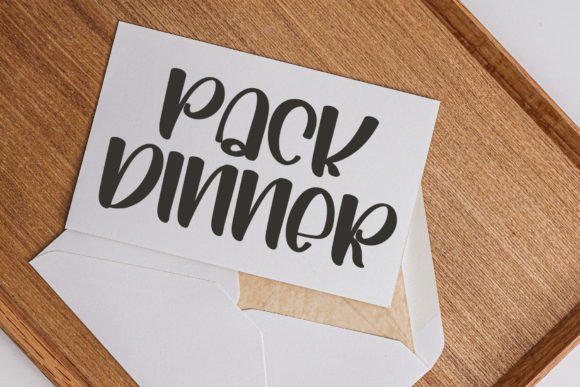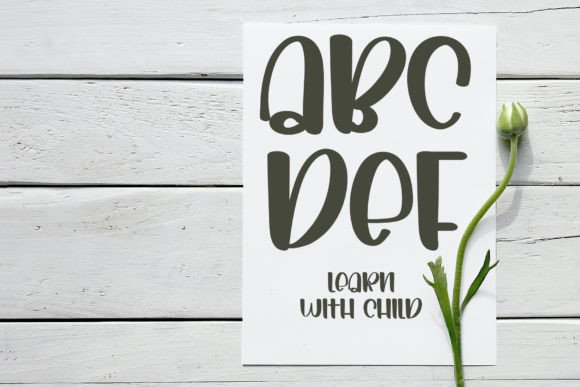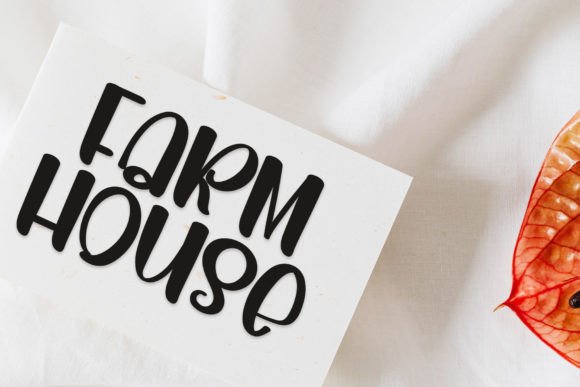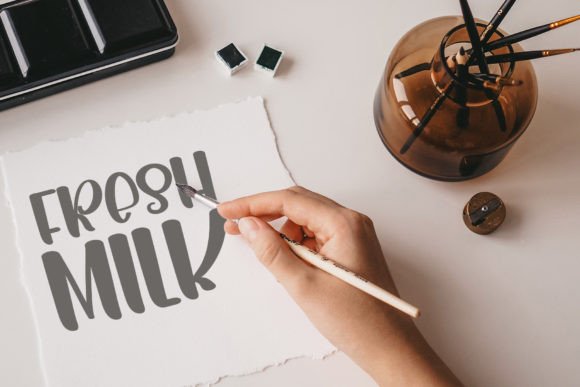
The Boho Chic of Typography
As designers, we’ve all been there – staring at a blank page, trying to conjure up the perfect font to match our creative vision. And then, like a breath of fresh air, it hits us: the perfect font that brings our design to life. For me, that font was the Boho Font, with its elegant handwritten style and playful, quirky personality.
Boho Font is more than just a font – it’s a way to add a touch of whimsy and individuality to any design. Its natural, handwritten style gives projects a charming and personal feel that’s hard to replicate with more formal fonts. Whether you’re designing a brand identity, a website, or a social media campaign, Boho Font is the perfect choice for anyone looking to add a little bohemian flair to their work.
Key Features of Boho Font
- Unique Characteristics: Boho Font features a bohemian-inspired design with intricate details, making it perfect for creating a free-spirited and artistic look.
- Font Styles: The font comes in 3 styles: Regular, Bold, and Italic, offering versatility for different design applications.
Boho Font Review
Boho Font is a beautiful, hand-drawn font that’s perfect for adding a touch of bohemian charm to your designs. ✨ The font’s organic, whimsical feel makes it ideal for creative projects, like blog headers, social media graphics, or even wedding invitations.
- Unique, hand-drawn design that adds a personal touch to your projects ✨
- Wide range of styles and weights to choose from, making it versatile and adaptable ✨
- Easy to read, even in small sizes, which is a must for digital designs ✨
- Not ideal for formal or corporate projects, as it may come across as too casual ⚠️
- Some letters may be difficult to read in certain font sizes or styles, especially for those with visual impairments ⚠️
Boho Font is a great choice for designers who want to add a touch of creativity and personality to their projects. While it may have some limitations, its unique design and versatility make it a valuable addition to any font collection. With a little experimentation and planning, you can achieve stunning results with Boho Font.
Tips for Getting the Most Out of Boho Font
To get the most out of Boho Font, try:
- Using it in conjunction with other creative fonts.
- Experimenting with different font sizes and styles.
- Pairing it with bold, bright colors.
Boho Font is perfect for:
- Designing invitations and wedding stationery.
- Creating social media graphics and blog posts.
- Developing brand identities and logos.